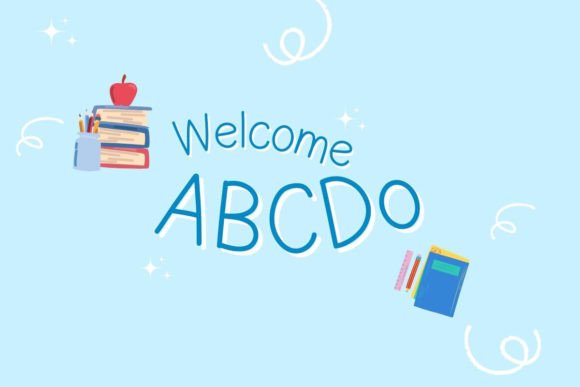
Welcome Abcdo Font: An Ode to Simplicity and Modern Charm
In the realm of typography, there lies a font family that captivates with its understated elegance and minimalist charm: Welcome Abcdo. This sans serif font, lovingly crafted by TanoiCartoonist, is like a breath of fresh air, bringing a sense of effortless style to your creative projects.
With its clean lines and legible letter forms, Welcome Abcdo exudes a modern aesthetic that is both timeless and versatile. Be it playful brochures, sleek branding designs, inviting social media posts, or captivating website headers, this font family effortlessly elevates your designs, adding a touch of sophistication and personality.
Immerse yourself in a world of creative possibilities with Welcome Abcdo. Picture whimsical invitations adorned with graceful script, or stylish logos that exude a unique charm. Let your imagination run wild as you design eye-catching posters with bold headlines that demand attention or craft elegant presentations that leave a lasting impression.
Welcome Abcdo is the perfect font family for those who appreciate the beauty of simplicity and the allure of minimalism. It seamlessly blends with various design styles, allowing you to create a cohesive and visually appealing aesthetic. Whether you're a seasoned designer or just starting your creative journey, Welcome Abcdo is your trusted companion, guiding you towards remarkable designs that captivate and inspire.
So why settle for ordinary when you can embrace the extraordinary? Embrace Welcome Abcdo, the font family that breathes life into your creative visions and transforms your designs into masterpieces. Let its subtle elegance and modern appeal work its magic, leaving your audience spellbound and yearning for more.